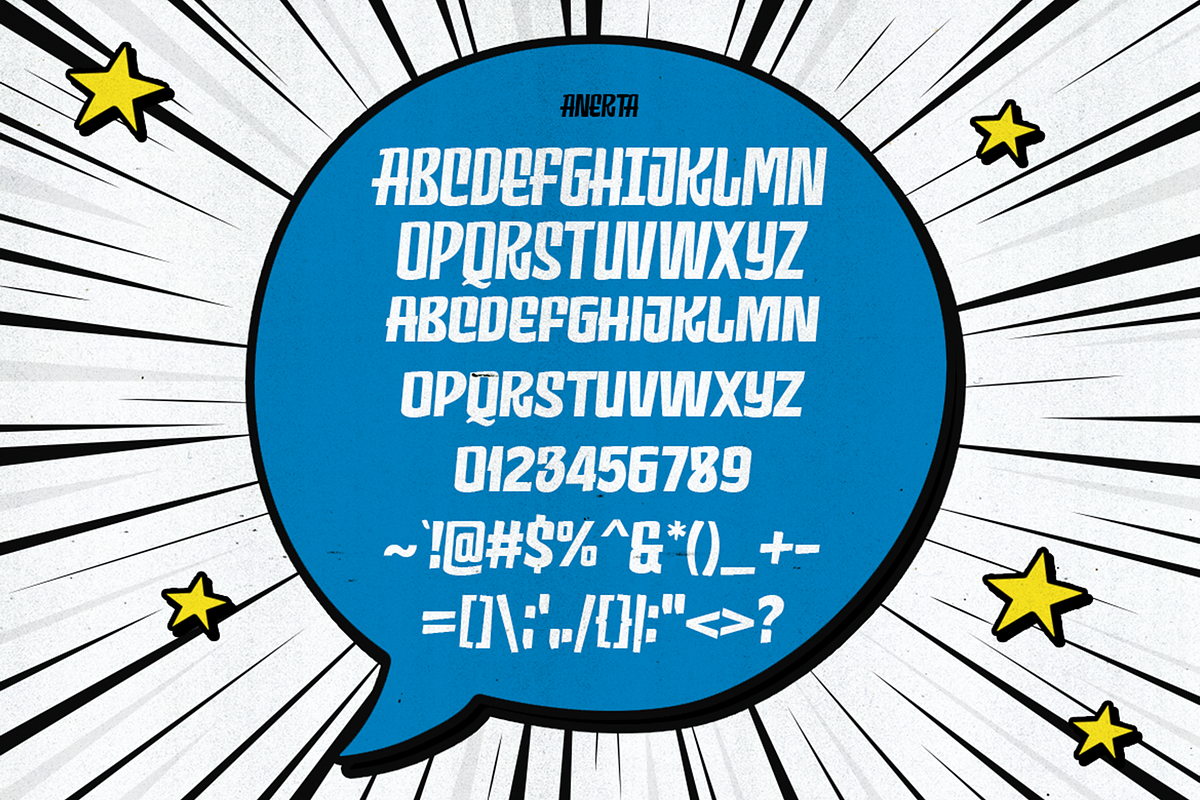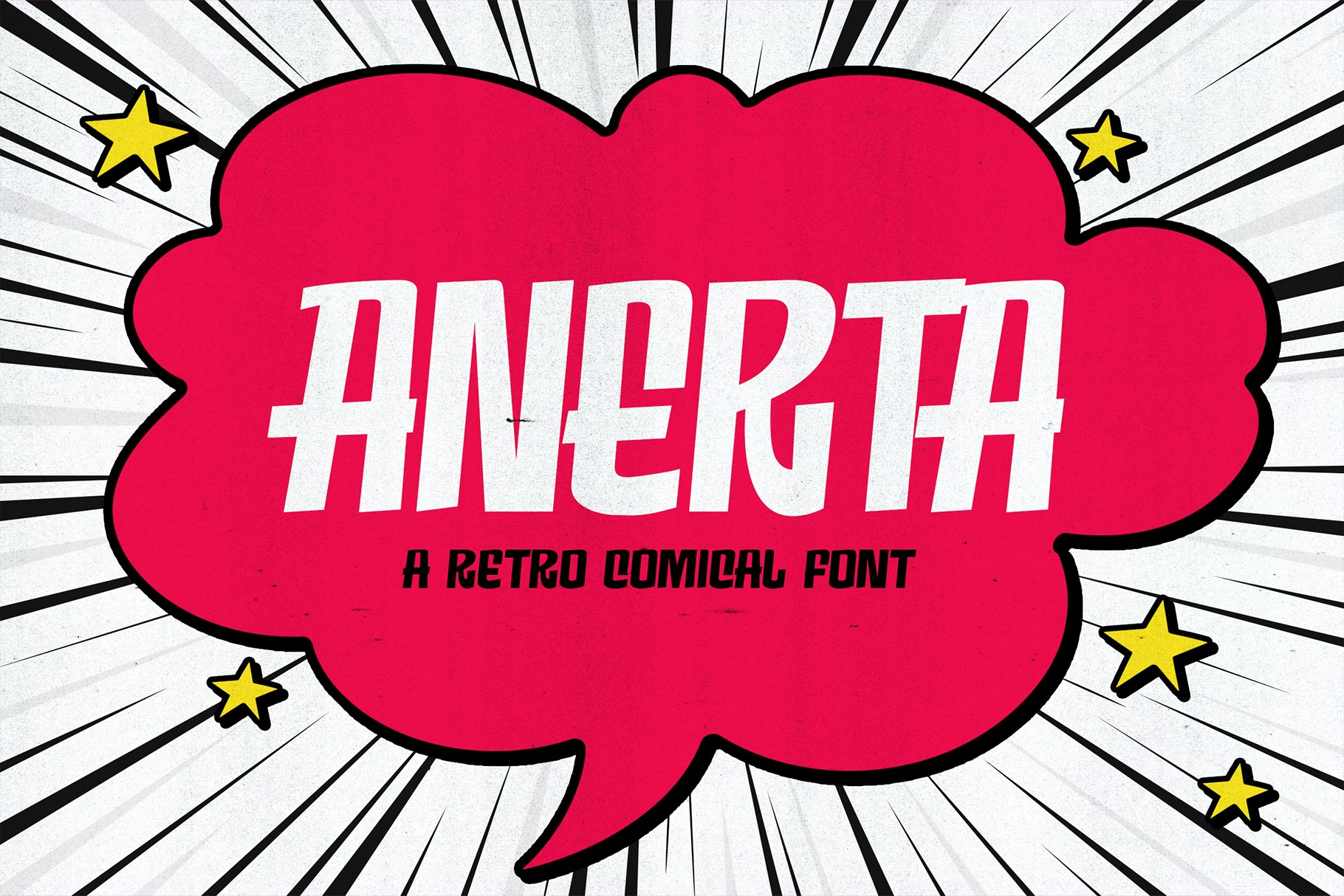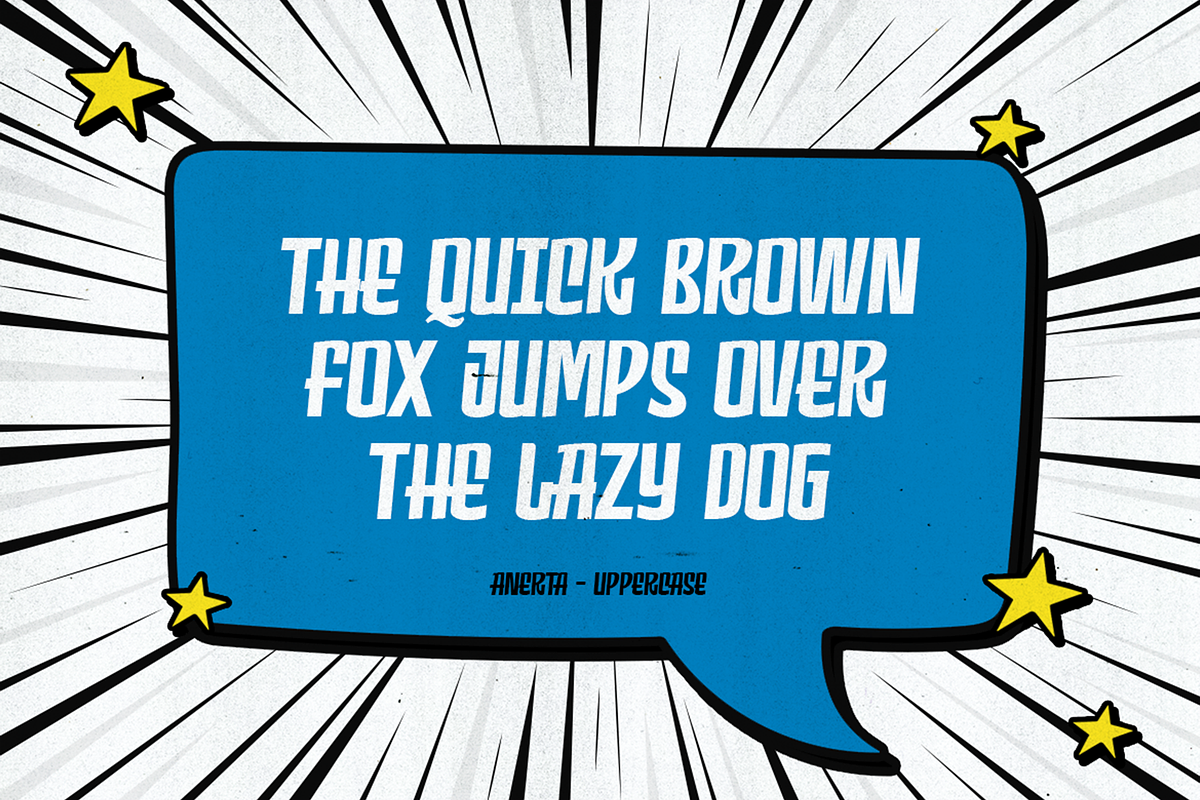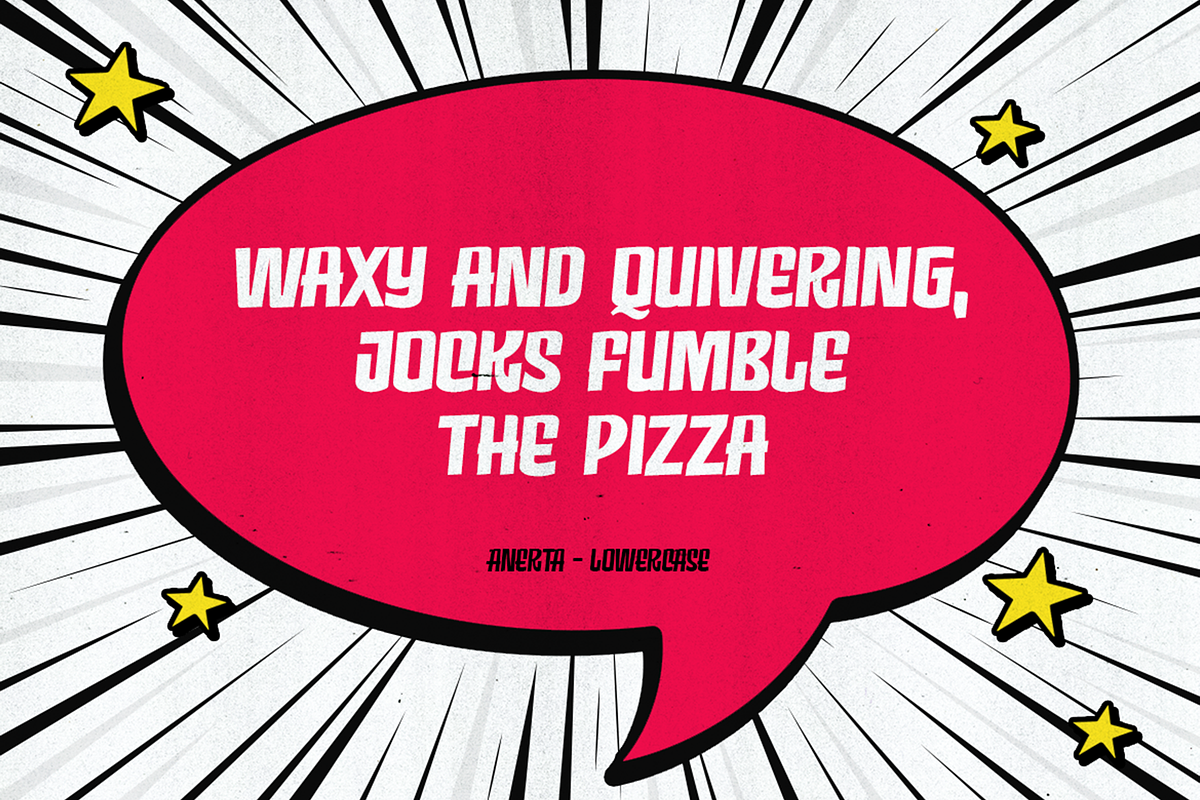
Anerta - Retro Comical Fonts
Blast from the Past! Dive into the vibrant world of retro comics with Anerta, the ultimate homage to the groovy graphics of the 70s and 80s!
Anerta is the most groovy collection of retro, bold, and comical fonts this side of retro realm!
Add a pow to your designs with these outrageous fonts, perfect for:
- Comic book creators: Capture that classic, KAPOW! feel.
- Graphic designers: Make your designs SHAZAM! with a bold and playful touch.
- Anyone who wants to add a touch of retro fun: It's like stepping into a real-life comic book!